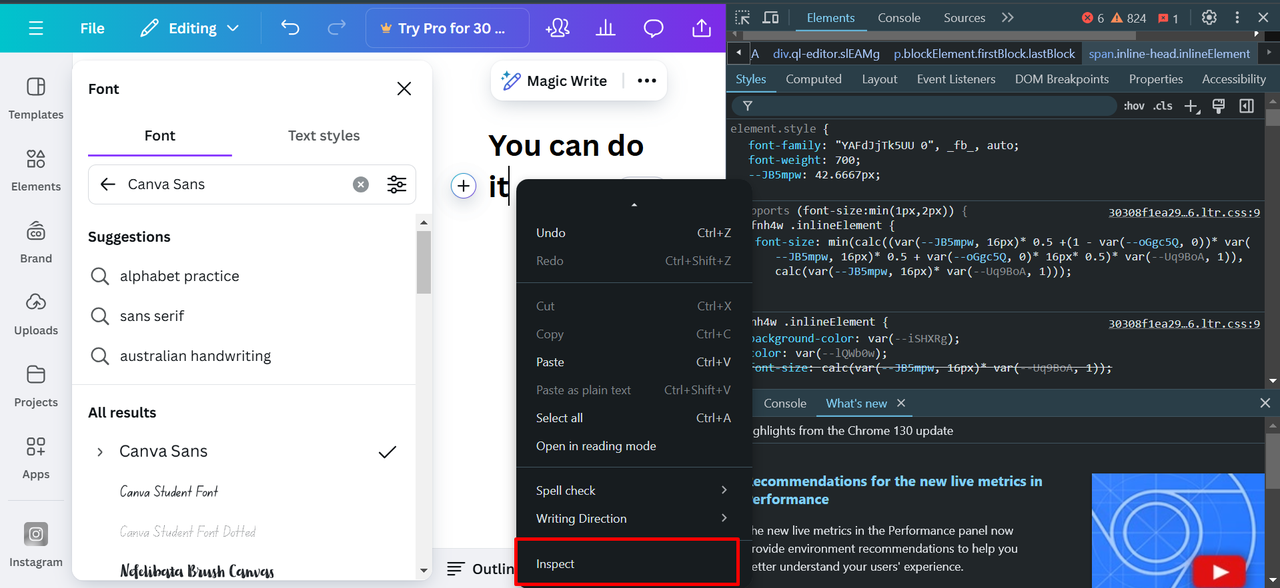
Canva Sans Font Guide: Download, Use, and Enhance Designs
Ever noticed how some designs just pop with confidence and modern flair? That’s often the magic of Canva Sans bold font at work. This versatile typeface pairs beautifully with various design elements and other font styles, bringing both clarity and visual appeal to everything from logos and headlines to promotional materials.
In this comprehensive guide, we’ll explore everything about Canva Sans—what makes it special, why designers adore it, and multiple ways to download and use it, including free options. We’ll also introduce you to helpful tools and alternatives that make working with fonts easier, particularly if you’re into video content creation.
Understanding Canva Sans Font
Canva Sans represents a clean, contemporary sans-serif typeface developed by the design platform Canva. Characterized by simple yet bold lines, this font offers exceptional readability and adaptability across diverse projects. Its straight edges and well-proportioned letterforms make it equally effective for large headings and smaller body text.
What sets Canva Sans apart is its unique ability to appear professional without seeming overly formal or rigid. It’s the type of font that naturally draws attention—ideal for creating logos or social media content that makes viewers pause their scrolling.
When exploring fonts similar to Canva Sans, you’ll notice many share this clean, geometric aesthetic, yet Canva Sans maintains its distinctive character that has won over designers worldwide.
Why Designers Choose Canva Sans Bold for Branding Projects
The popularity of Canva Sans bold among designers isn’t accidental. Across various branding and design applications, here’s how professionals leverage this typeface to make their work stand out:
Memorable Brand Logos Strong logos require clarity and memorability. Canva Sans bold delivers precisely this—its confident strokes help establish striking visual identities that people recognize instantly.
Attention-Grabbing Headlines Whether for blog content or promotional posters, headlines must capture attention. The bold variant of Canva Sans ensures your message gets noticed without dominating the overall design.
Impactful Presentation Openings First impressions count significantly in presentations. Utilizing Canva Sans bold on your introductory slides creates a powerful opening that maintains audience engagement.
Elegant Event Invitations From casual gatherings to formal occasions, Canva Sans bold adds contemporary sophistication to invitations. It maintains simplicity while avoiding any blandness.
Effective Product Promotions During product promotions, your materials need visual impact. Canva Sans bold emphasizes key messages effectively, making your promotional content more memorable.
It’s completely understandable why many designers seek fonts similar to Canva Sans—its utility spans countless applications.